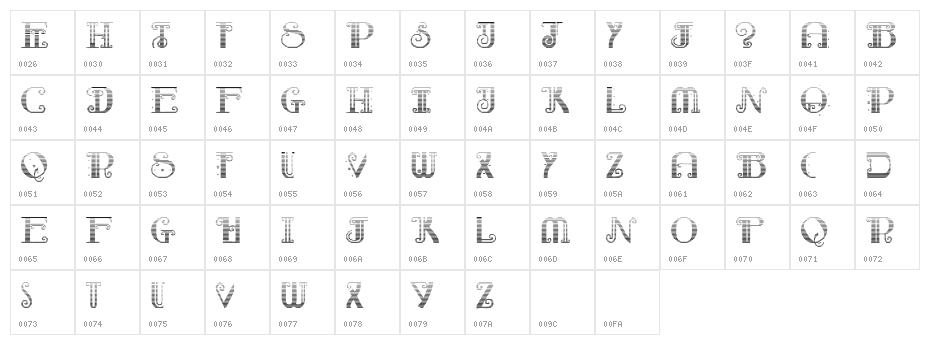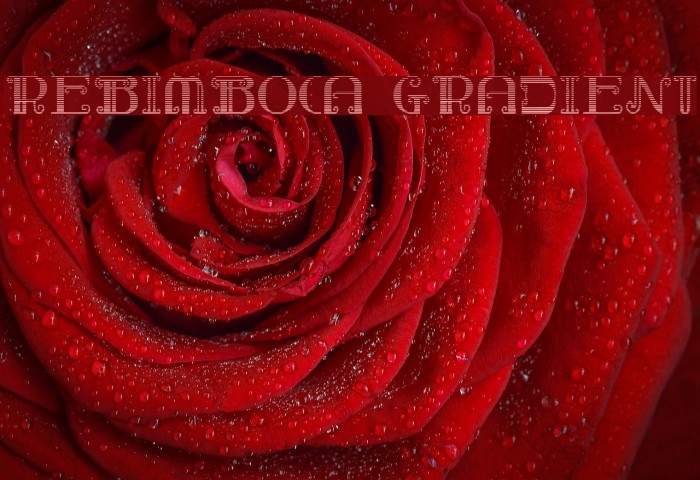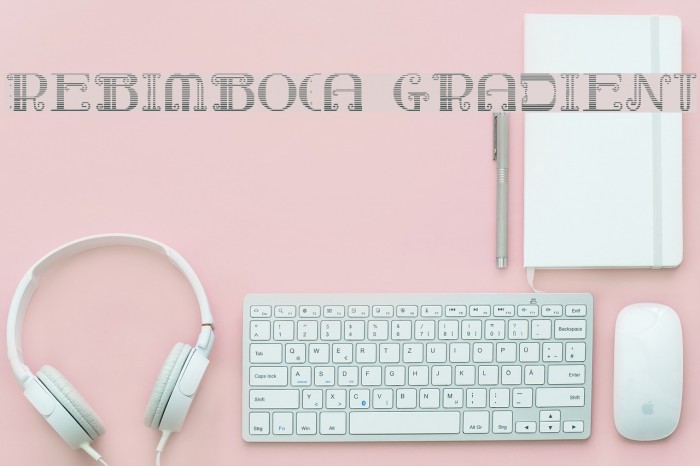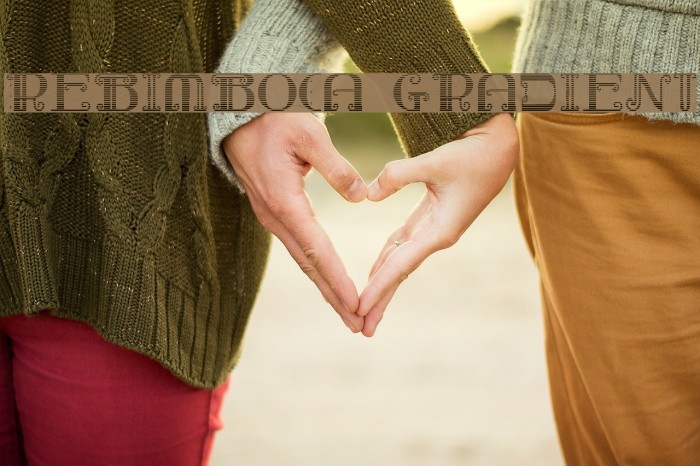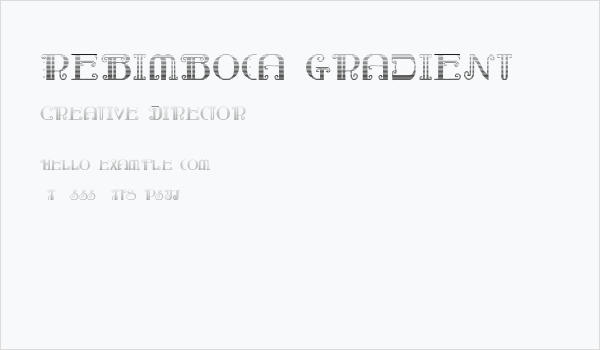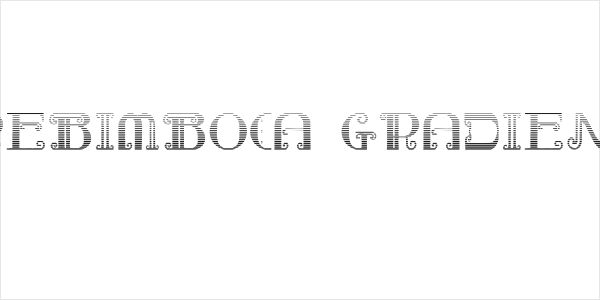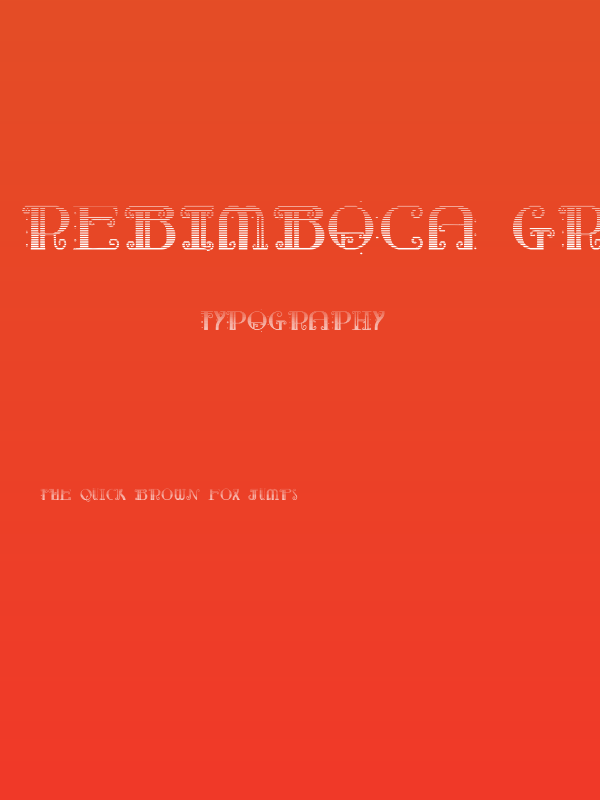
Rebimboca Gradient Font
Rebimboca Gradient Description
This font features a unique decorative style with a gradient effect created by horizontal lines that vary in thickness. Each character is designed with intricate detailing, giving it a textured appearance. The uppercase letters are bold and prominent, while the lowercase letters maintain the same decorative elements. The numbers and special characters follow the same design principles, ensuring consistency across the font. This font is ideal for projects that require a distinctive and eye-catching typeface.
| Proposed Projects | Ideal for posters, branding, and creative projects that require a standout typeface. |